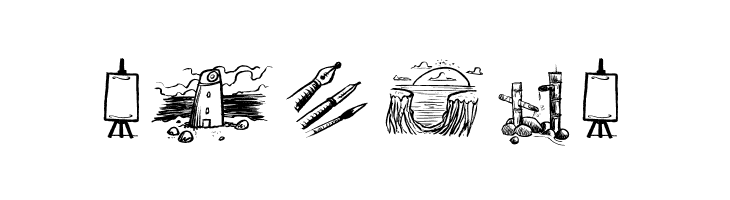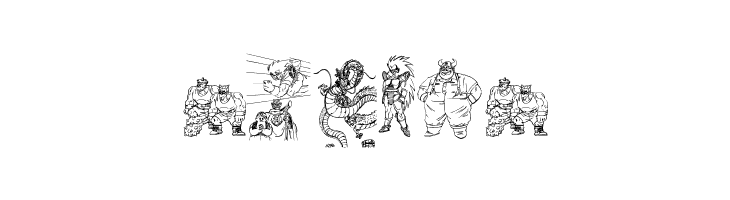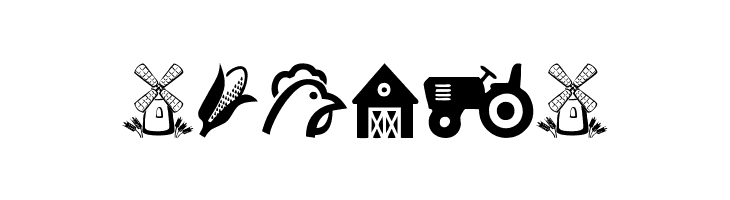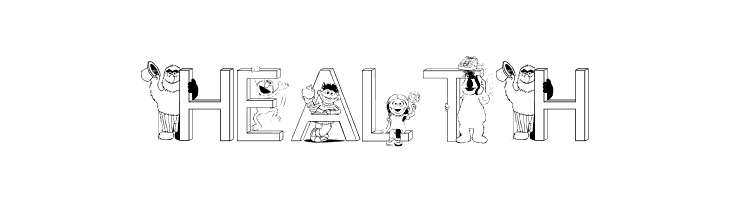
( LisaMarie - www.mysticalmodality.com/ )
A decorative font featuring romantic-themed illustrations in a vintage comic style.
( London's Letters - www.londonsletters.com/ )
A playful, decorative font with cartoon illustrations within each letter.
( London's Letters - www.londonsletters.com/ )
A decorative font with tropical island motifs integrated into each letter.
( Plan Nine Design - formerly at www.pangea.ca/~nine/andrew/inside/type.html )
A collection of cowboy-themed clip art illustrations, not a traditional font.
( Sassy Graphics - web.archive.org/web/20020202083925/www.graphicdesignplus.com/denise/main.html )
A decorative font with aquatic-themed illustrations in each character.
( Fonts by dcoxy )
A decorative font with whimsical, hand-drawn illustrations and playful text.
A decorative display font made of detailed character illustrations.
( Fonts by Ding Bang )
Bold, high-contrast agricultural and farm-themed pictogram set.
Bold, playful orchestra and music-themed icon set in silhouette style.
A decorative font with each character depicted as a unique building in pixel-art style.